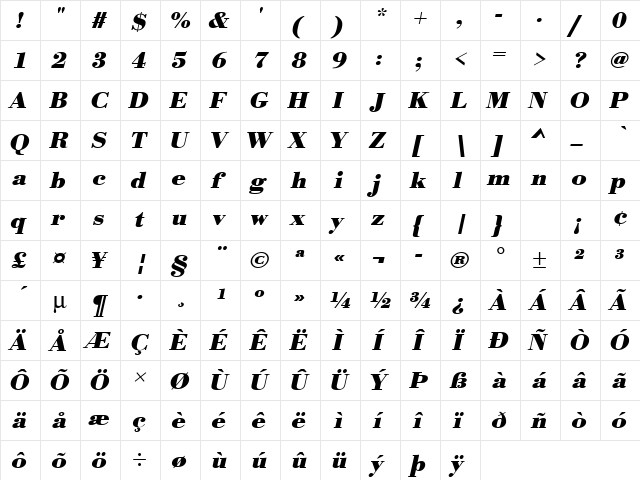
URWBodoniTWid Bold Oblique Font Preview
Design Context for URWBodoniTWid Typeface
URWBodoniTWid takes a measured approach to typography — its balanced proportions and neutral character make it a reliable workhorse for both digital and print work. Its italic angle brings a sense of urgency and motion to the letterforms. The heavy weight commands attention and anchors typographic hierarchies.
Pro Tip: Use URWBodoniTWid for emphasis, pull quotes, and subheadings where its slanted energy can add rhythm to the layout.